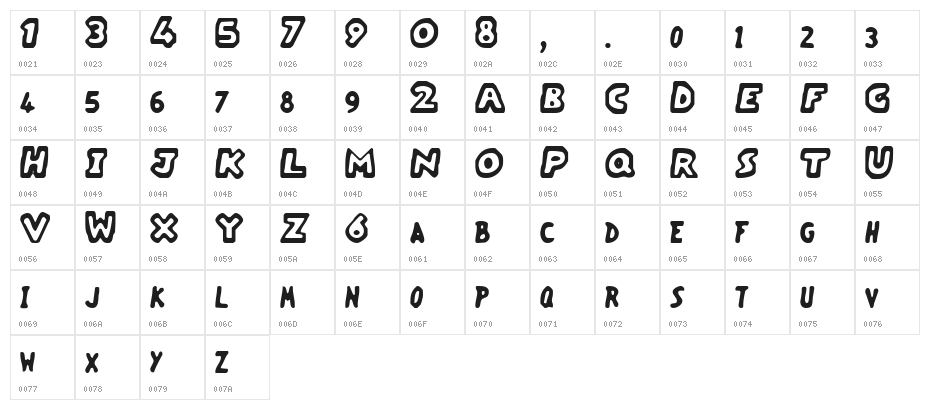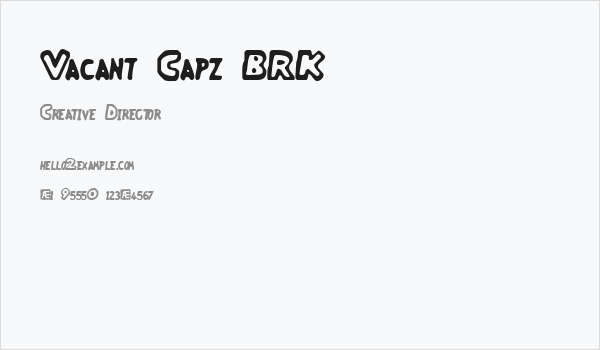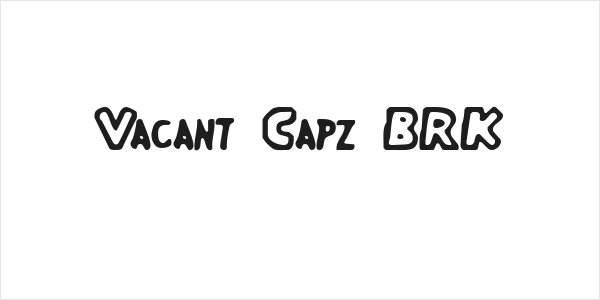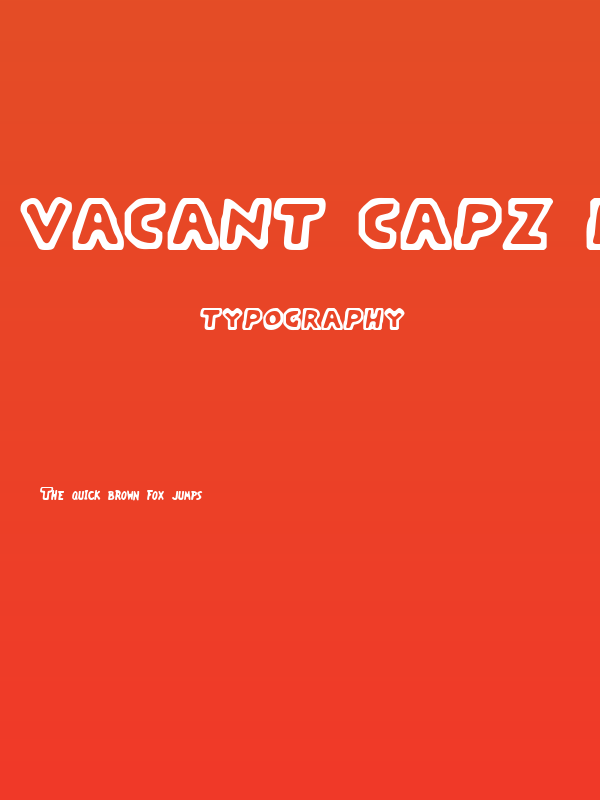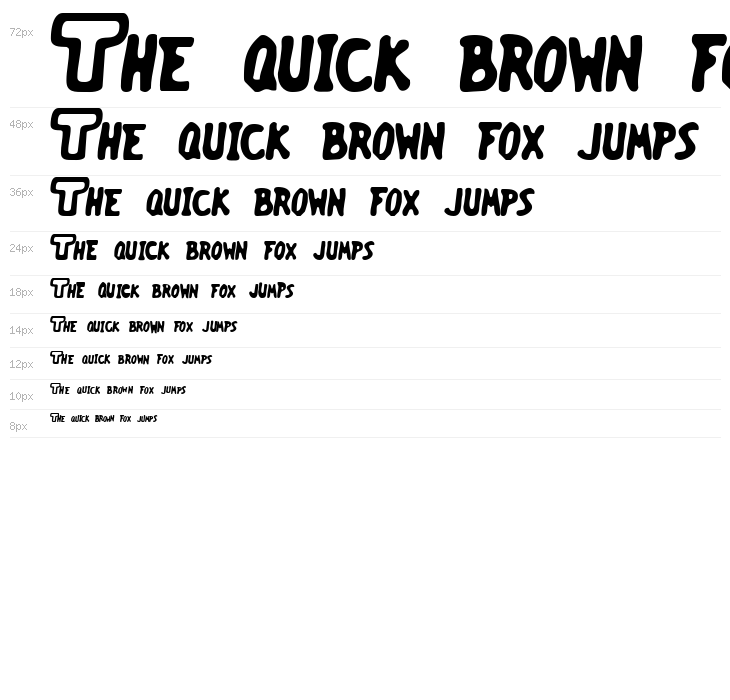
Vacant Capz BRK Font
Vacant Capz BRK Description
This font features a bold and playful style with a distinct outline that gives each character a three-dimensional appearance. The uppercase letters are characterized by their thick, rounded edges and a consistent stroke width, creating a sense of uniformity and balance. The lowercase letters maintain the same playful aesthetic, with slightly exaggerated curves and a whimsical flair. The numbers are bold and easy to read, matching the overall style of the alphabet. Special characters are integrated seamlessly, maintaining the font's cohesive look. This font is ideal for projects that require a fun and engaging visual impact, such as children's books, posters, or branding for playful products.
| Overall Style | Playful, Fun, Whimsical |
| Proposed Projects | Ideal for children's books, playful branding, posters, and creative designs. |